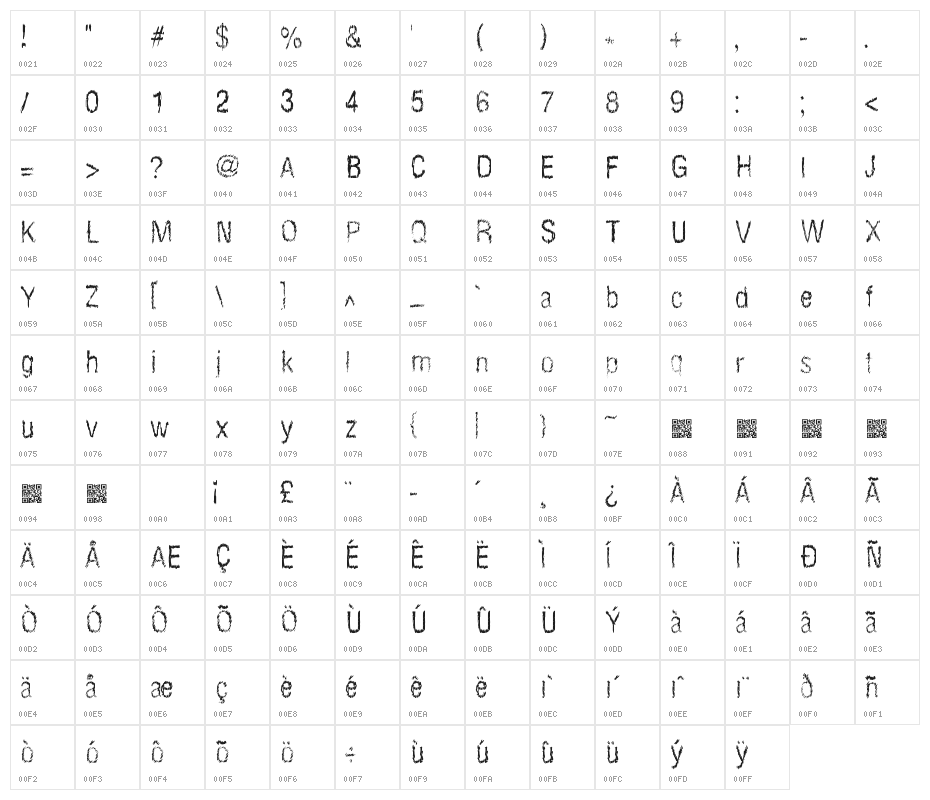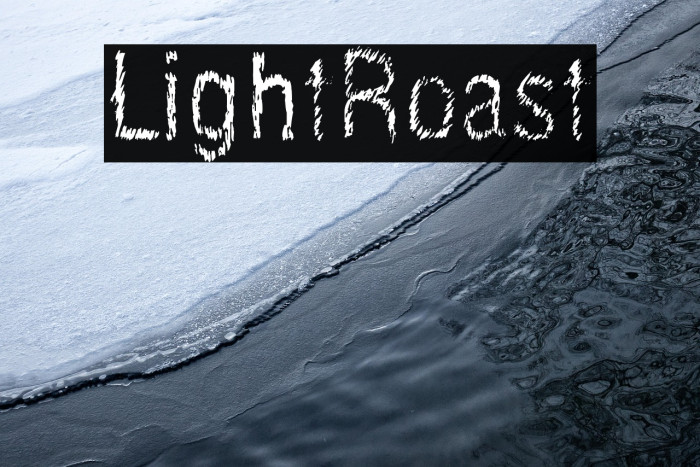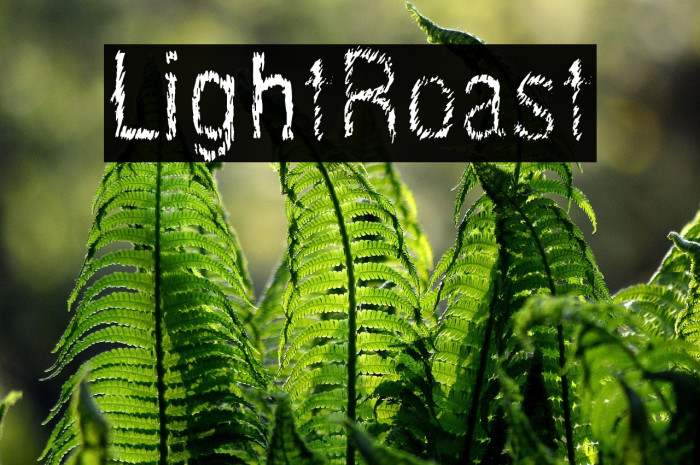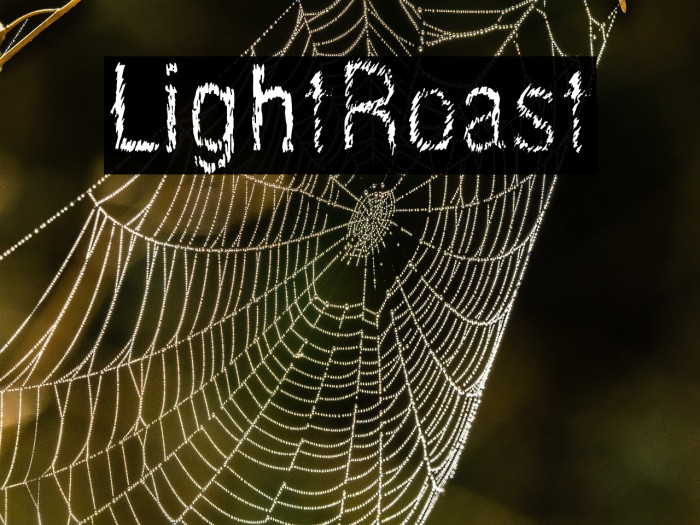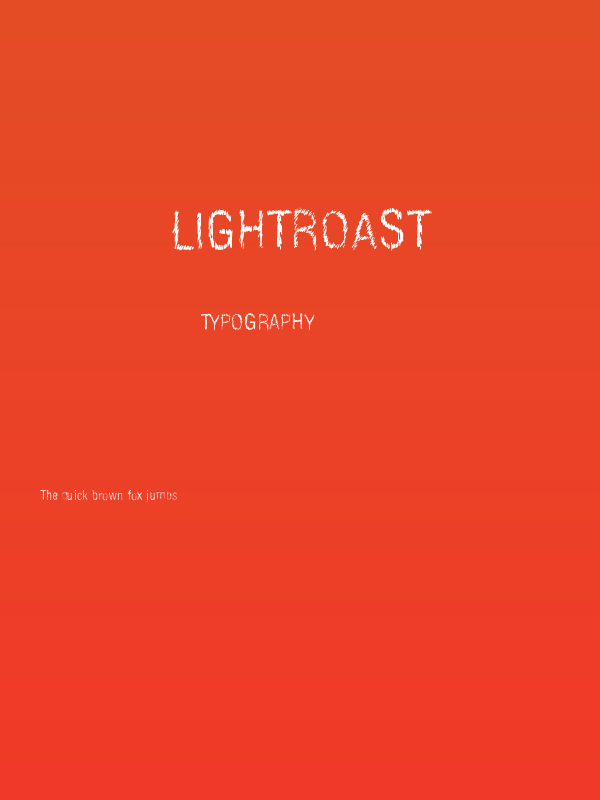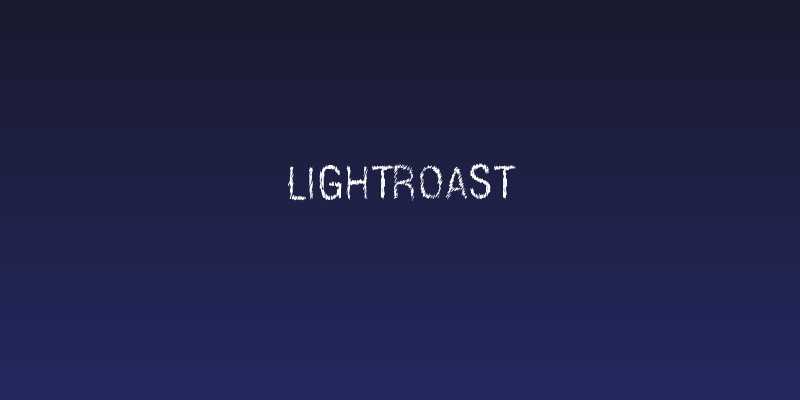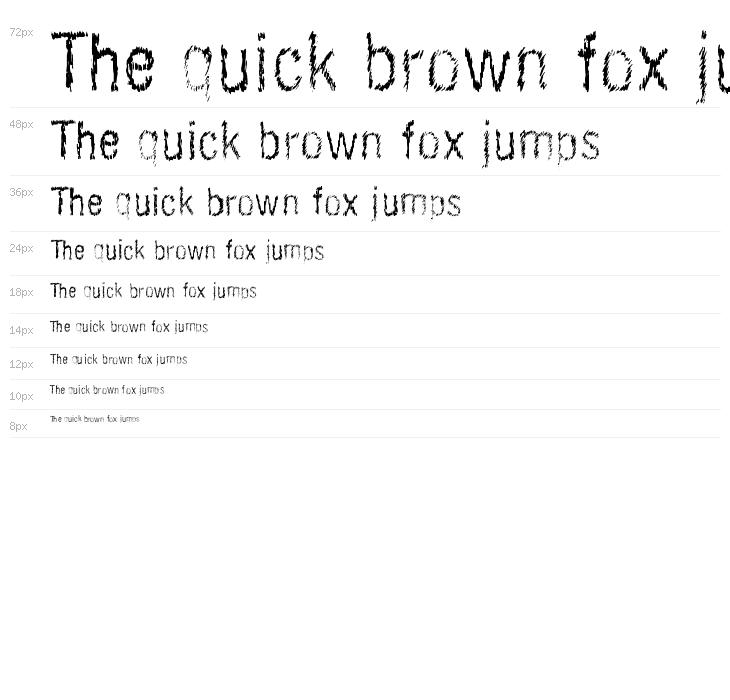
LightRoast Font
LightRoast Description
This font features a unique, distressed texture that gives it a dynamic and edgy appearance. The characters appear as if they are made from rough brush strokes or have been weathered over time, creating a sense of movement and energy. The uppercase and lowercase letters maintain a consistent style, with jagged edges and irregular forms that add to the overall aesthetic. The numbers and special characters follow the same design principles, ensuring a cohesive look across all glyphs. This font is ideal for projects that require a bold, artistic touch, such as posters, album covers, or branding for creative industries.
| Proposed Projects | Posters, album covers, creative branding, artistic projects. |